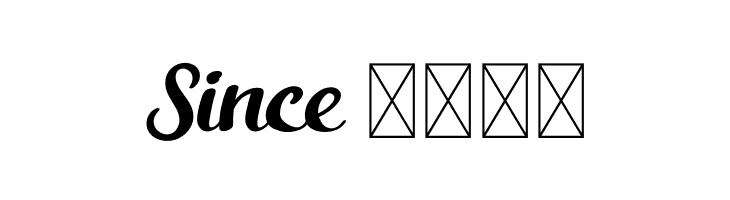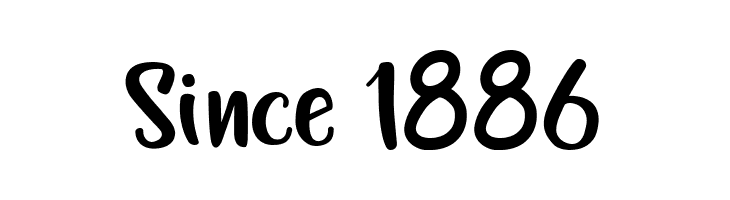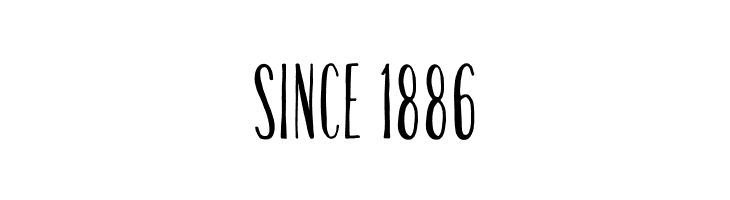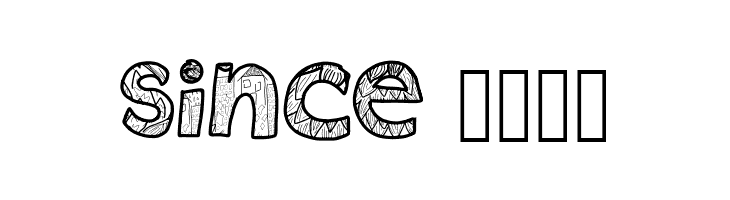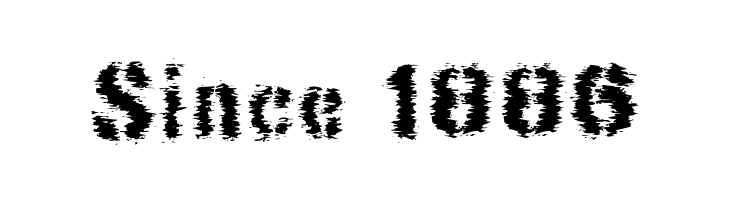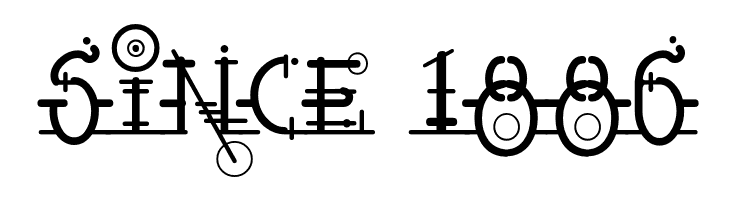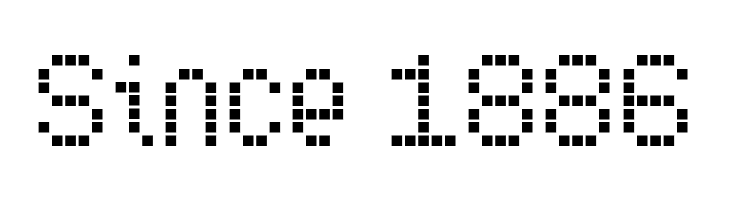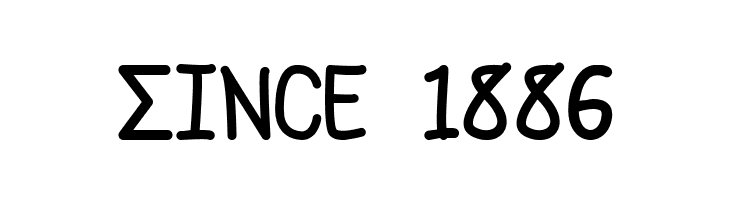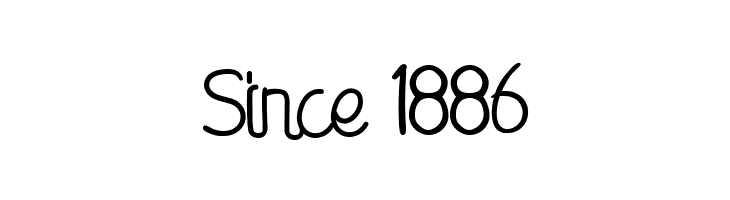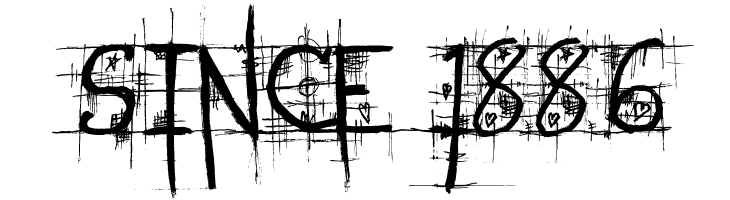
• Smoother Regular
A playful, handwritten-style font with smooth, flowing lines and rounded edges.
• Snippletweak
A decorative and intricate font with geometric embellishments and a futuristic style.
• Sorority LaneRegular
A playful, handwritten font with rounded, informal characters.
• Stem Panini
A tall, narrow, hand-drawn font with an organic and playful style.
• STREET@GOTHIC
A gritty, distressed font with a hand-drawn, urban style.
• SubwayTicker
A pixelated dot matrix font with a retro digital display style.
• Sweet Jennys Demo Regular
A playful, handwritten font with smooth curves and a casual style.
• Tetteg Heart Personal Use
A bold, flowing script font with elegant, cursive letterforms and a modern touch.
• THE MORGUE
A playful, hand-drawn font with intricate patterns and doodles.
• ThisCorrosion
A bold, distressed font with a corroded, textured appearance.